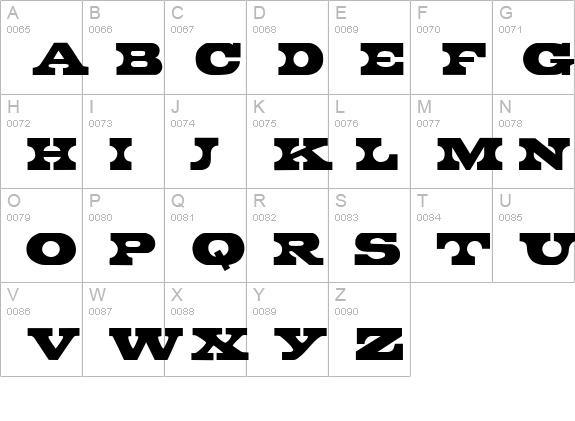
Bronte Display Caps SSi Font Details
Bronte Display Caps SSi font is a stunning and elegant typeface that exudes sophistication and charm. With its classic and timeless design, this font is perfect for creating eye-catching headings and titles that demand attention. The sharp serifs and clean lines give Bronte Display Caps SSi font a refined and polished look, making it suitable for a wide range of design projects. What sets Bronte Display Caps SSi font apart is that it is available for free download at FontsMarket.com. This means that you can easily access this beautiful font and use it in your creative endeavors without any cost. Whether you're designing invitations, posters, logos, or any other graphic materials, Bronte Display Caps SSi font is sure to elevate your projects with its elegance and sophistication. Don't miss out on this fantastic opportunity to enhance your designs with this exquisite font - download Bronte Display Caps SSi font for free today!